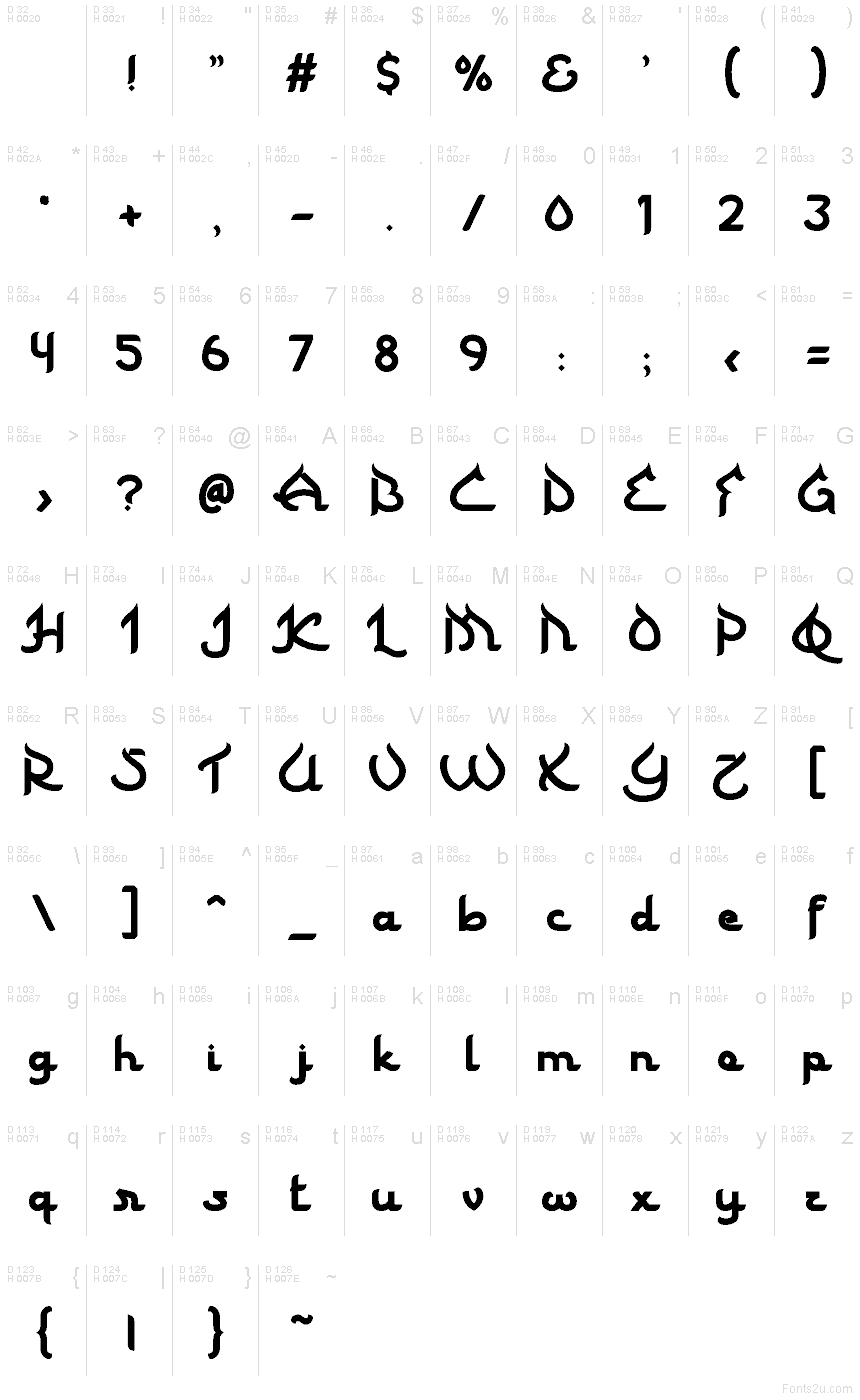
Turban Genie
Turban Genie font by PutraCetol Studio is a free arabic display font. Built with inky, lamp-like swashes and rounded, tapering strokes, it evokes desert markets and storybook nights without slipping into clichés. The rhythm is smooth and connected, with compact spacing and soft, bulbous terminals that hold together even at large sizes, giving headlines a lush, hand-lettered presence.
Using Turban Genie, headlines snap into character for restaurant logos, spice or tea packaging, hookah lounge signage, festival posters, travel brochures, and children’s book covers. This free font shines on brand marks and banner-sized titles where you want warmth and theatrical flair. Pair it with a clean geometric sans for body copy and keep tracking slightly open to let those curving strokes breathe.